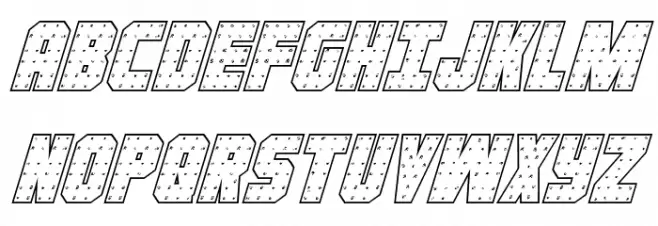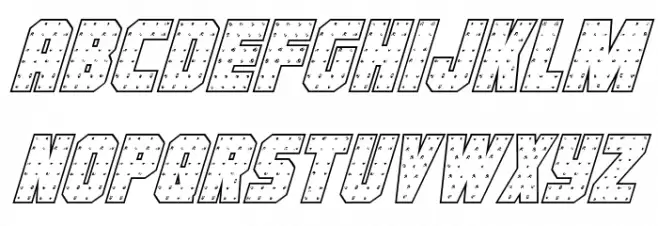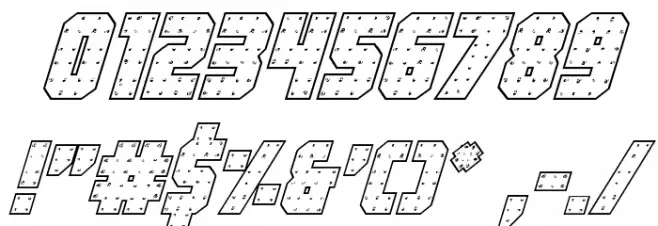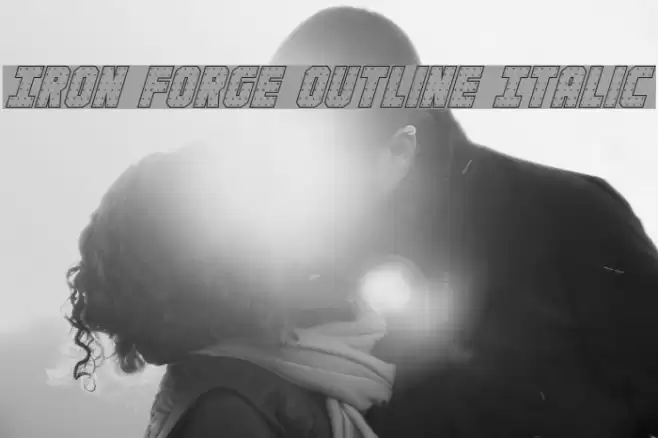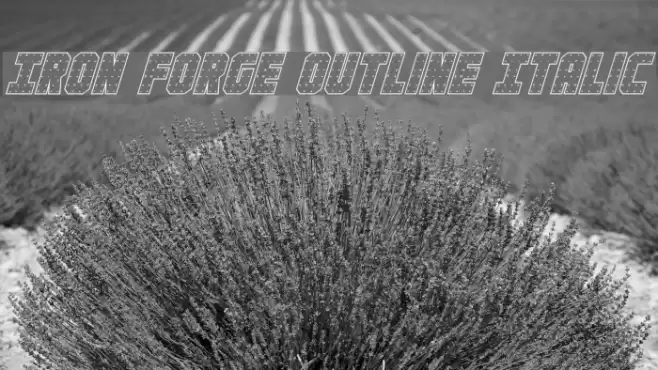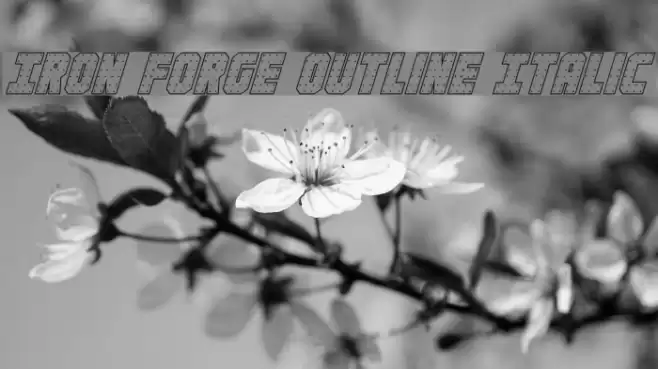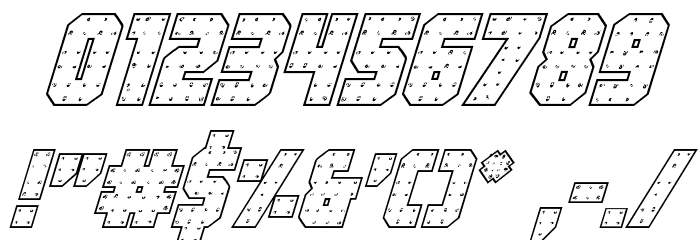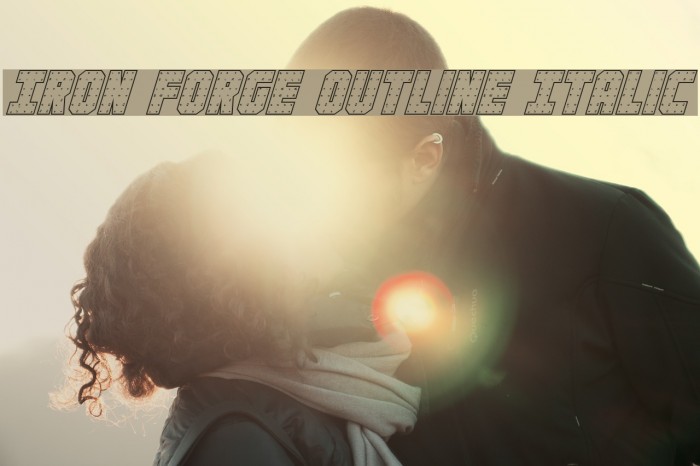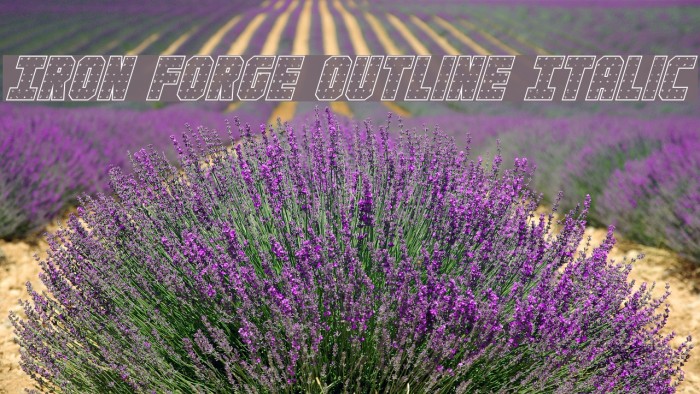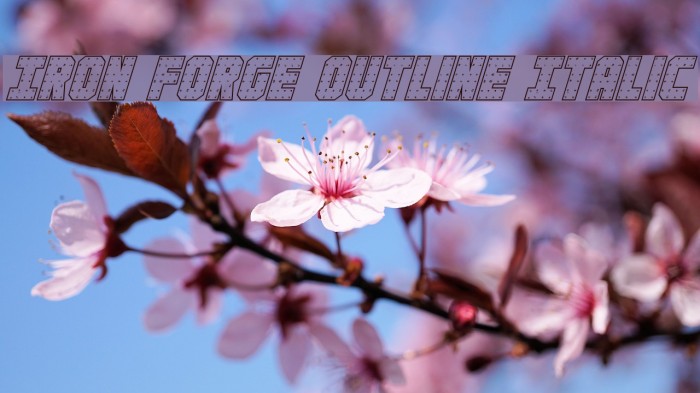
Iron Forge Outline Italic
This font features a bold, industrial design with a distinct outline style. The characters are italicized, giving them a dynamic and forward-leaning appearance. Each letter is filled with a textured pattern that resembles a rugged, metallic surface, adding depth and a sense of craftsmanship. The uppercase and lowercase letters maintain a consistent height, while the numbers and special characters are designed to match the overall aesthetic. The font's geometric shapes and sharp angles convey a sense of strength and durability, making it ideal for projects that require a bold and impactful visual statement.
A bold, italicized outline font with a rugged, industrial texture.
- Proposed Projects: Ideal for branding, posters, and signage that require a strong, industrial look.
- Overall Style: Industrial, Decorative
- Use Case: Headlines, Logos, Posters